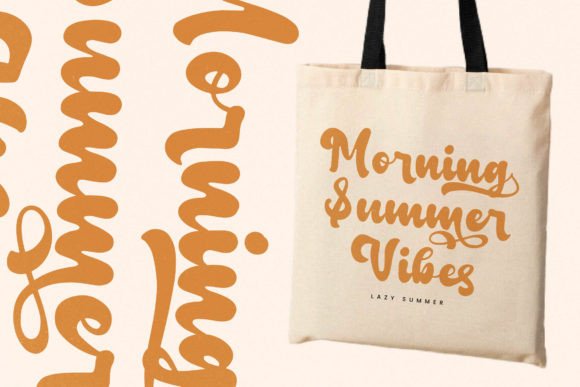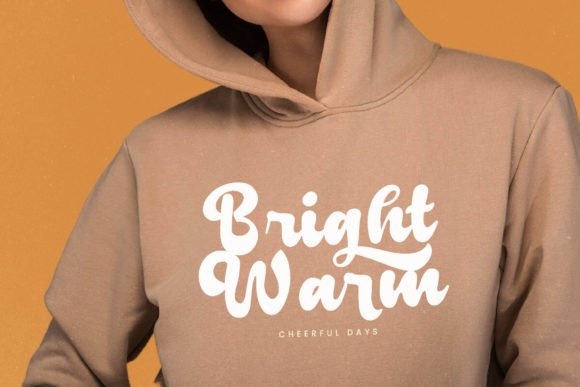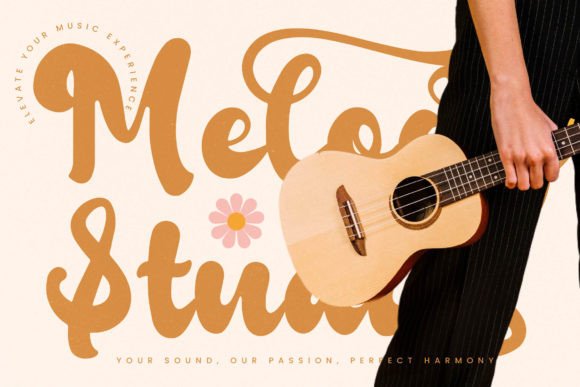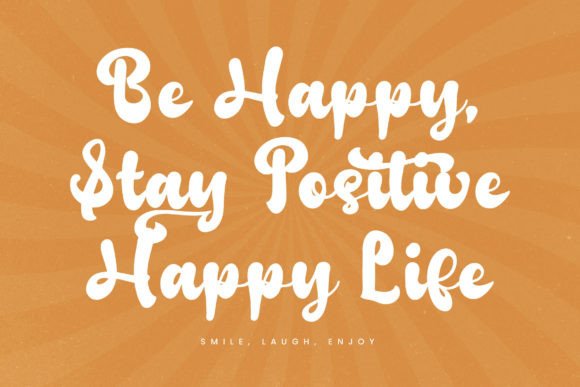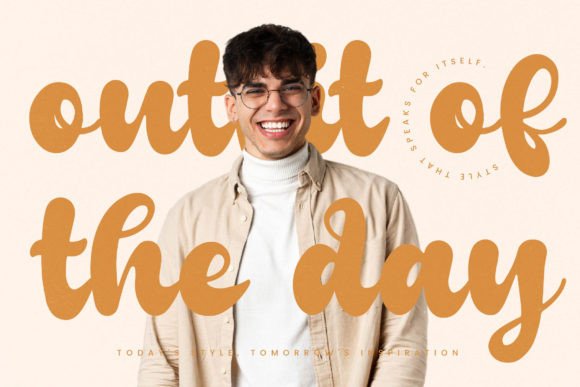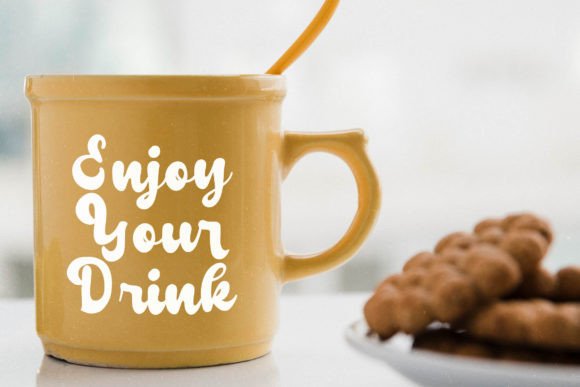
Introduction to Mastery Angels Font
Mastery Angels is a vintage-style font that looks bold and handwritten, bringing a nostalgic touch to your designs.
Its retro charm adds a unique flair to any project, giving it a classic yet modern feel .
Key Features of Mastery Angels Font